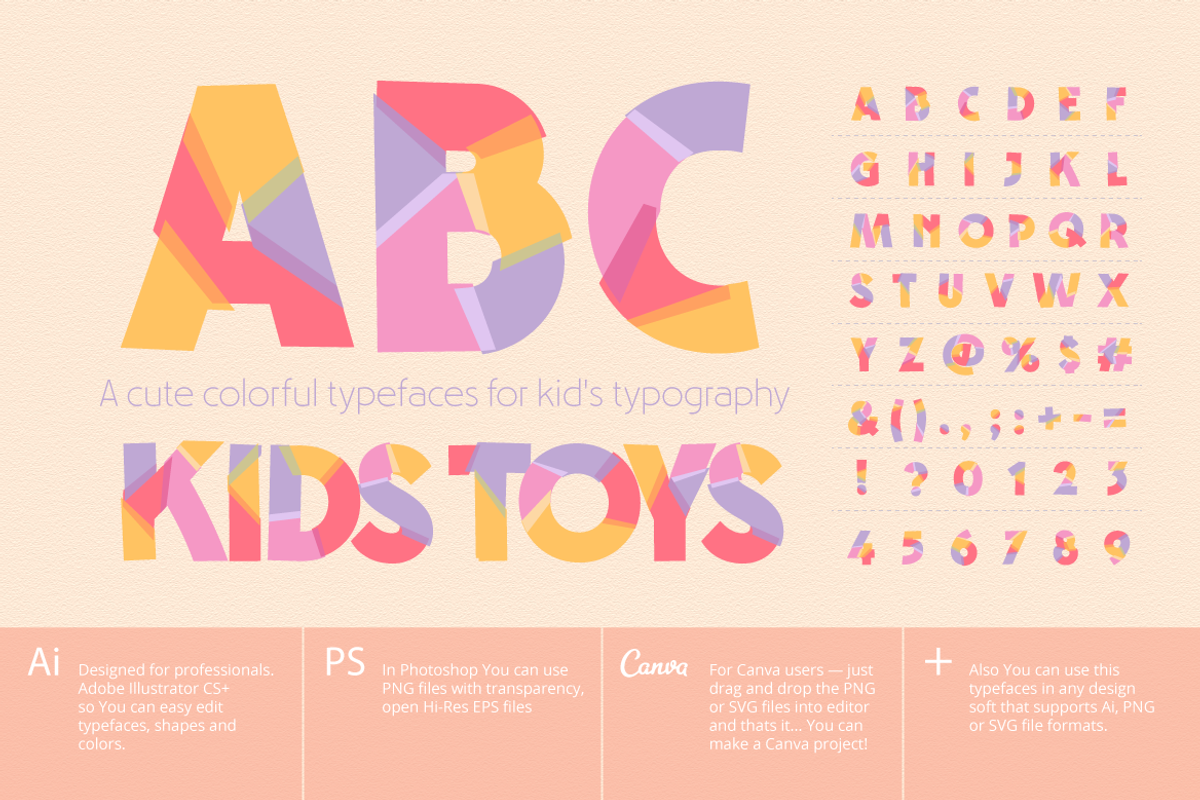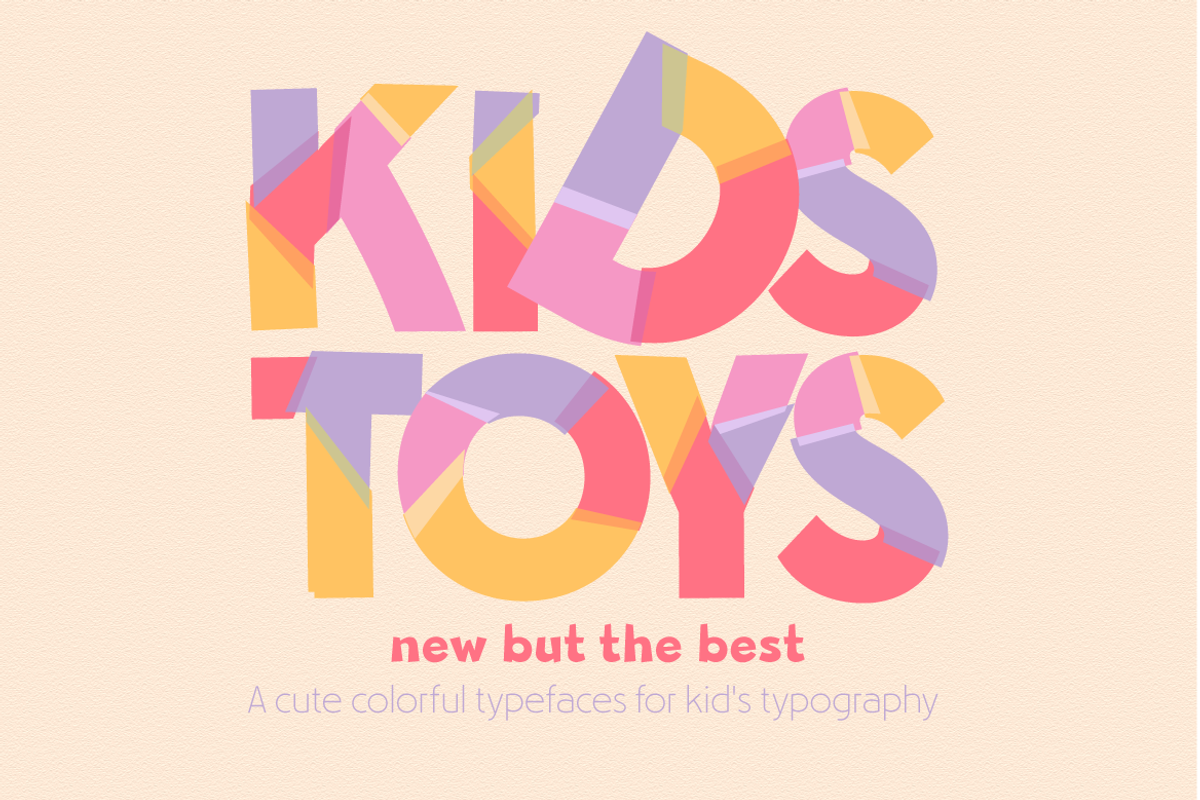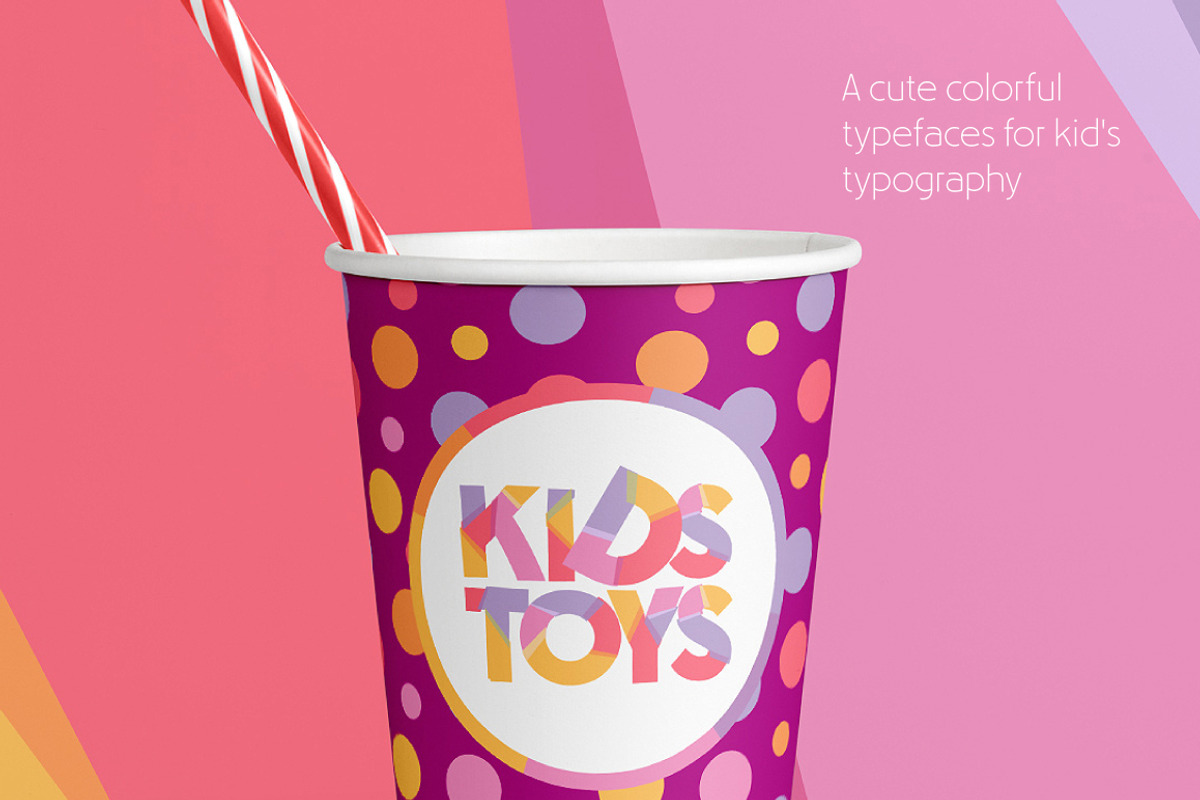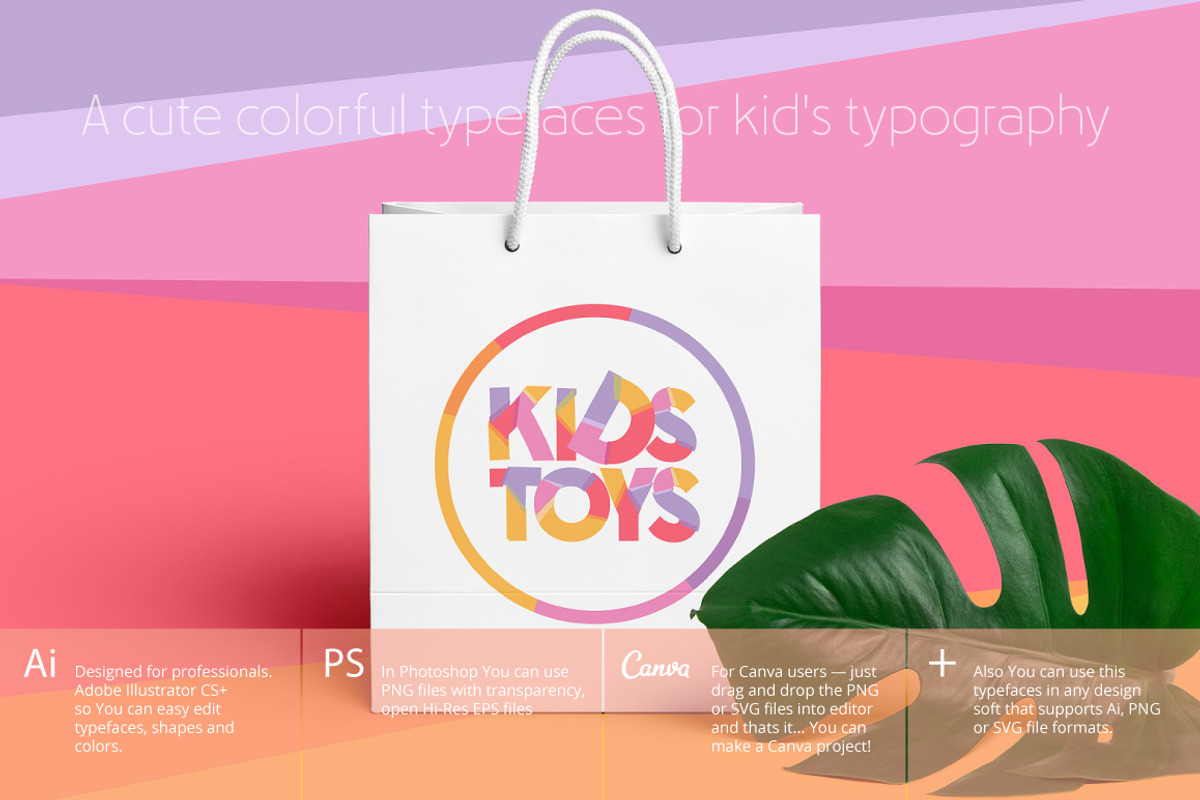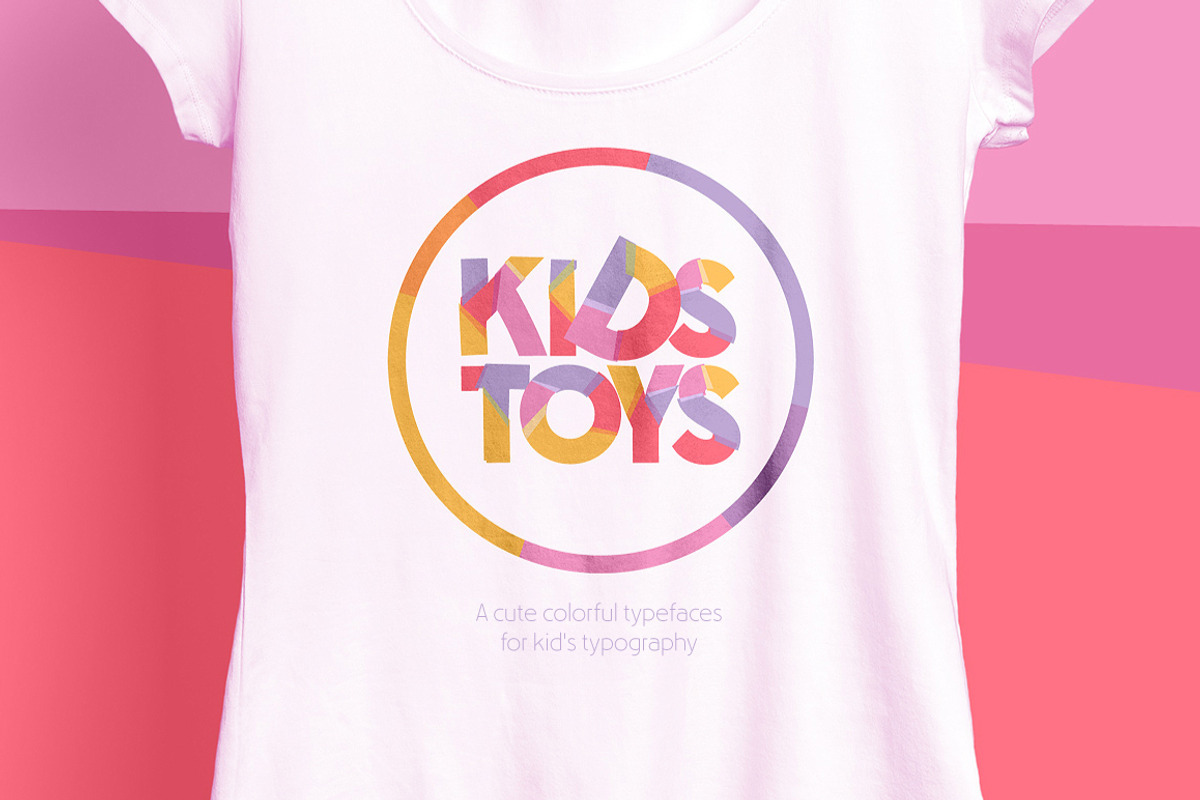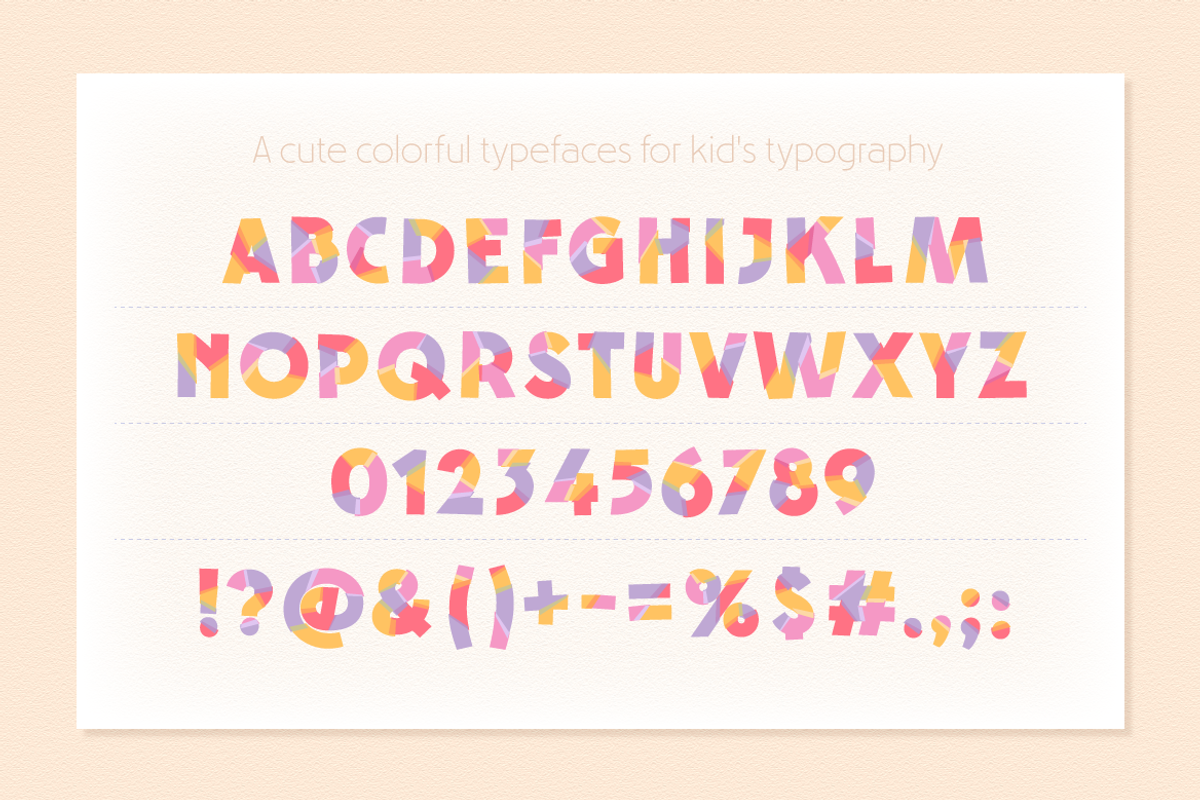
Colorful typefaces child typography
Vector letters for original typography
Do you need to quickly and inexpensively create effective marketing content? Banners, sliders, presentations? Do you want to delight your customers with quality projects in a short time? This collection of typefaces will help you quickly and effectively reach this! There is nothing superfluous and only the most necessary goods in this set. With this lettering you'll make commercial masterpieces!